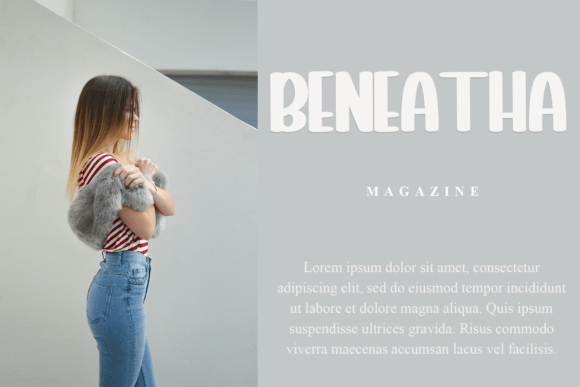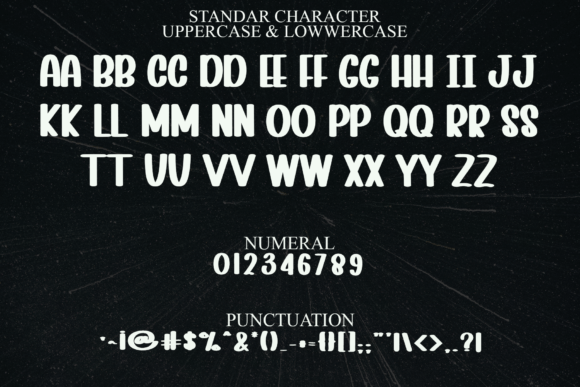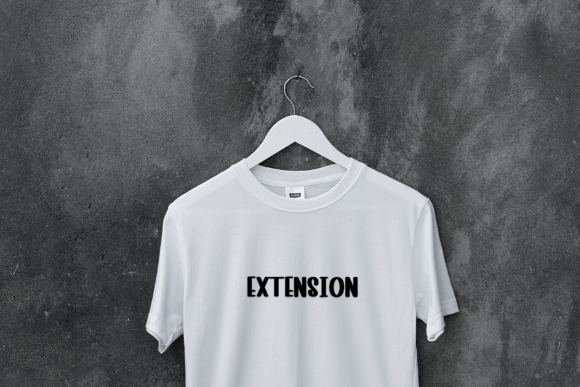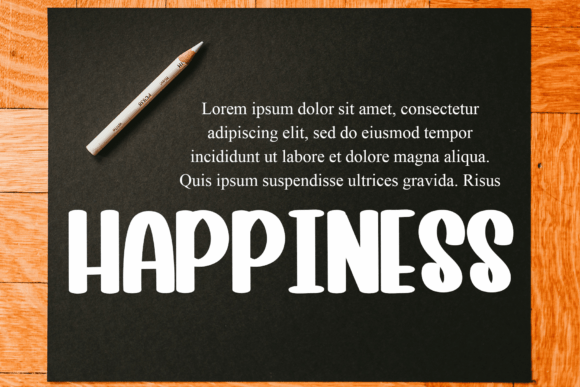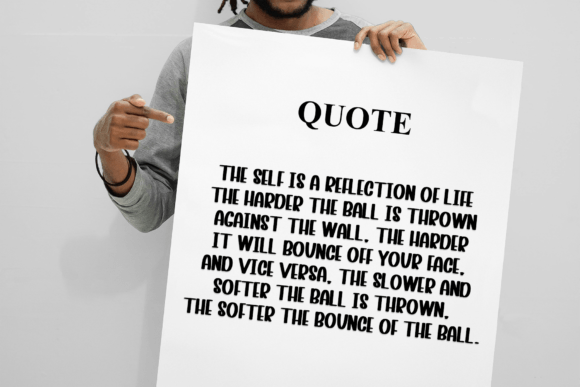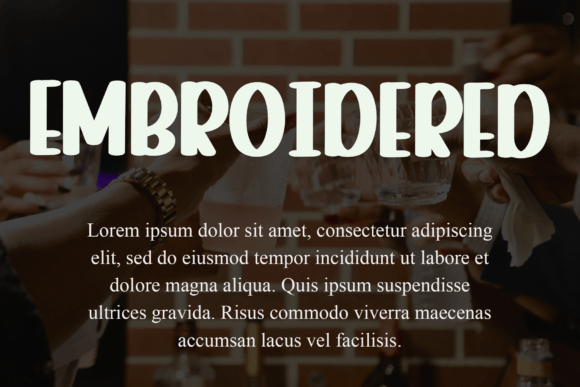
The Ultimate Guide to Drinking Font: Elevate Your Designs with this Timeless Beauty
I’ll never forget the moment I stumbled upon the Drinking font. I was working on a branding project for a trendy coffee shop, and I was struggling to find the perfect font that would capture the essence of their quirky personality. That’s when I discovered Drinking – a lovely and timeless display font that instantly caught my attention. In this article, I’ll share my experience with Drinking font, its features, and how to make the most of it in your designs.
An Honest Review of Drinking Font
So, what makes Drinking font so special? Here are some things I love about it:
- ✨ Unique and beautiful touch: Every letter in Drinking font has a distinct character that adds a touch of elegance to your designs.
- ✅ PUA encoded: With PUA encoding, you can easily access all the amazing glyphs and ligatures, making it a breeze to create stunning designs.
- 💫 Perfect for display text: Drinking font is ideal for creating eye-catching logos, branding, and quotes that will make your design stand out.
While Drinking font is amazing, there are a few small quirks to keep in mind:
- 🤔 Limited use in body text: Due to its decorative nature, Drinking font might not be the best choice for body text. It’s best used for headlines, titles, or quotes.
- ⚠️ May require adjustments: Depending on the design, you might need to adjust the font size, spacing, or kerning to get the desired look.
The Backstory of Drinking Font
Drinking font was created with the intention of crafting a unique and beautiful display font that would add a touch of elegance to designs. The designer aimed to create a font that would be perfect for creating eye-catching logos, branding, and quotes. With its PUA encoding and OpenType features, Drinking font has become a popular choice among designers.
| What is the best use for Drinking font? | Drinking font is ideal for display text, such as logos, branding, and quotes. |
| Can I use Drinking font in body text? | While possible, Drinking font is best used for headlines, titles, or quotes due to its decorative nature. |